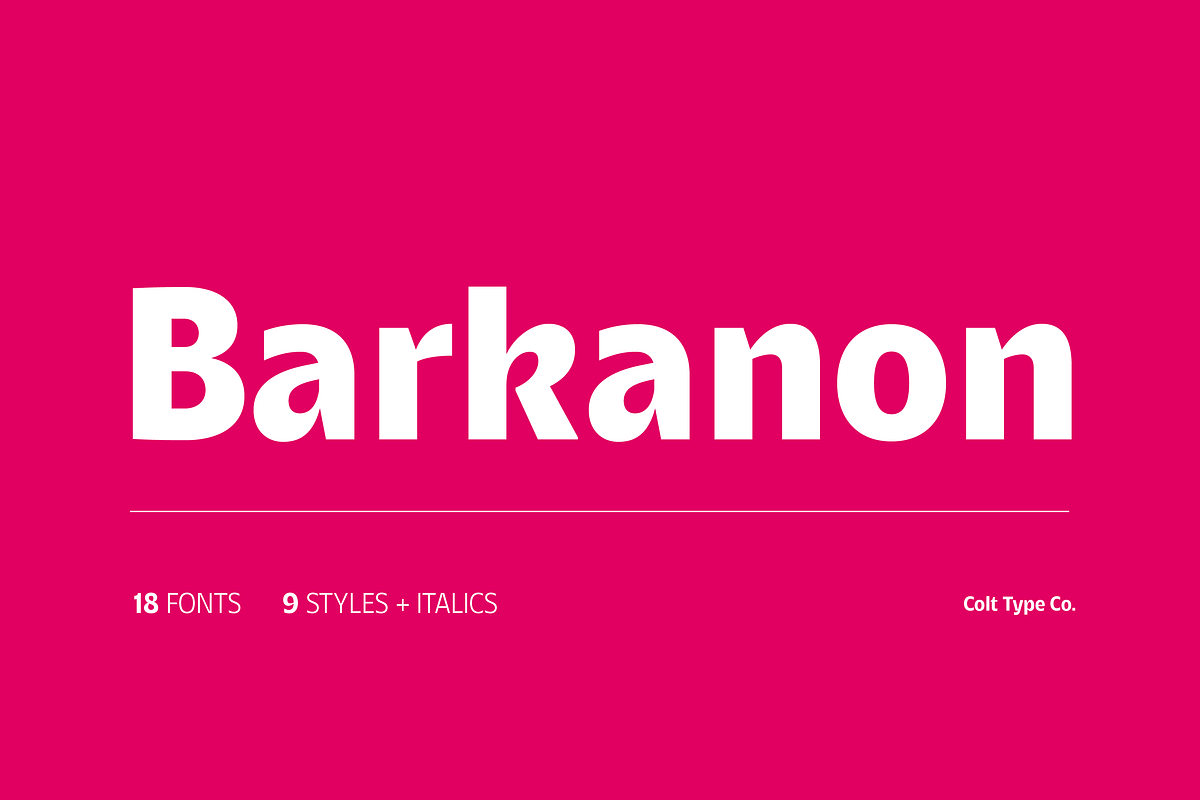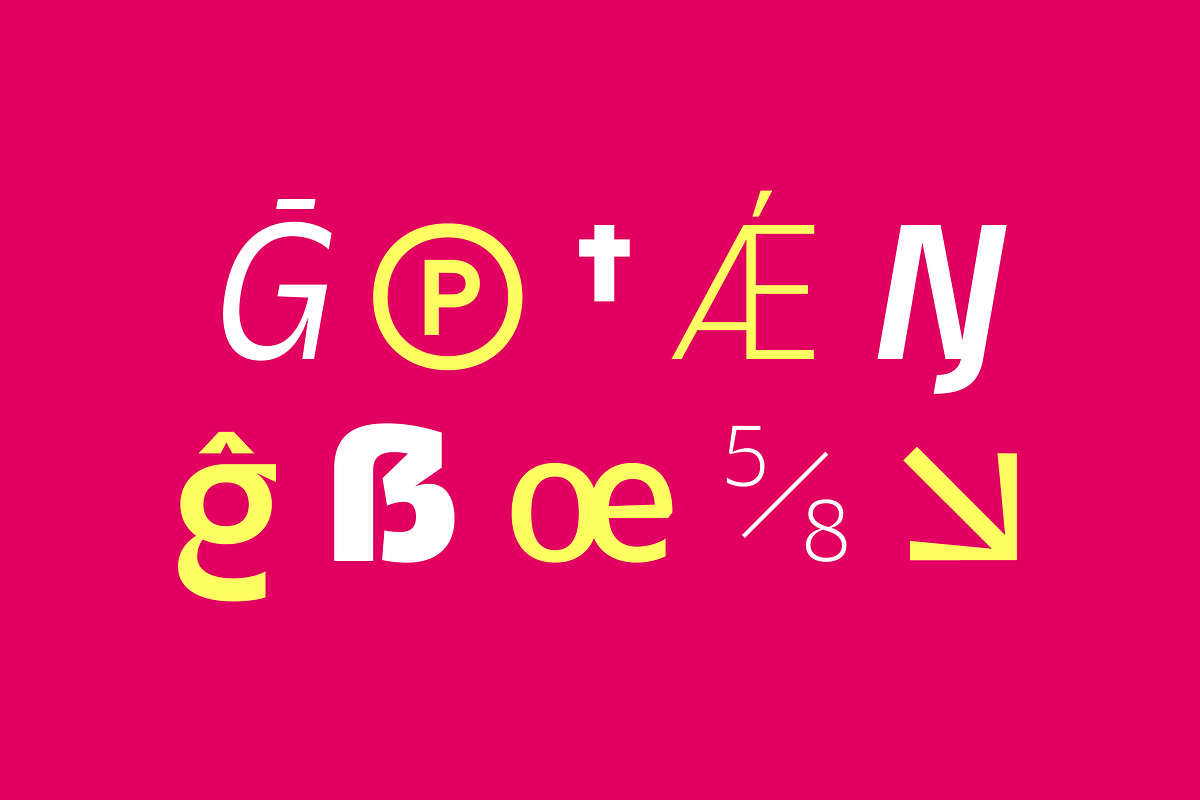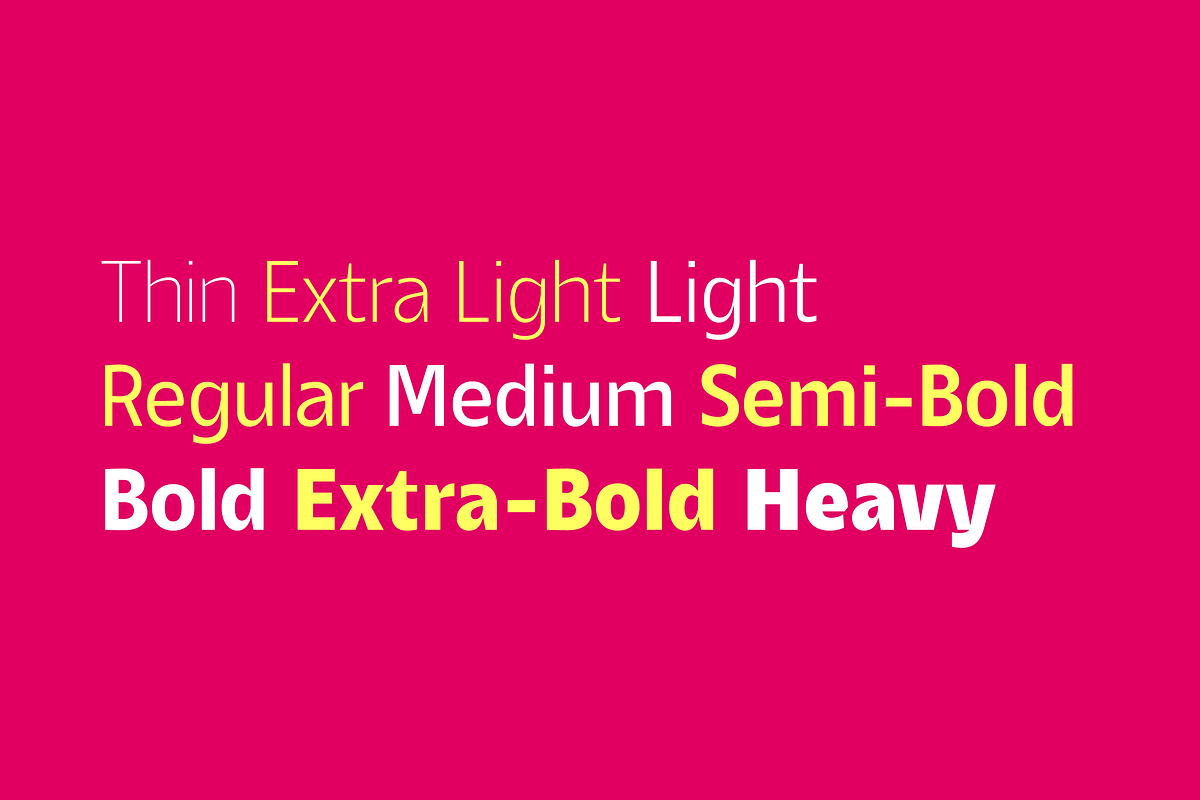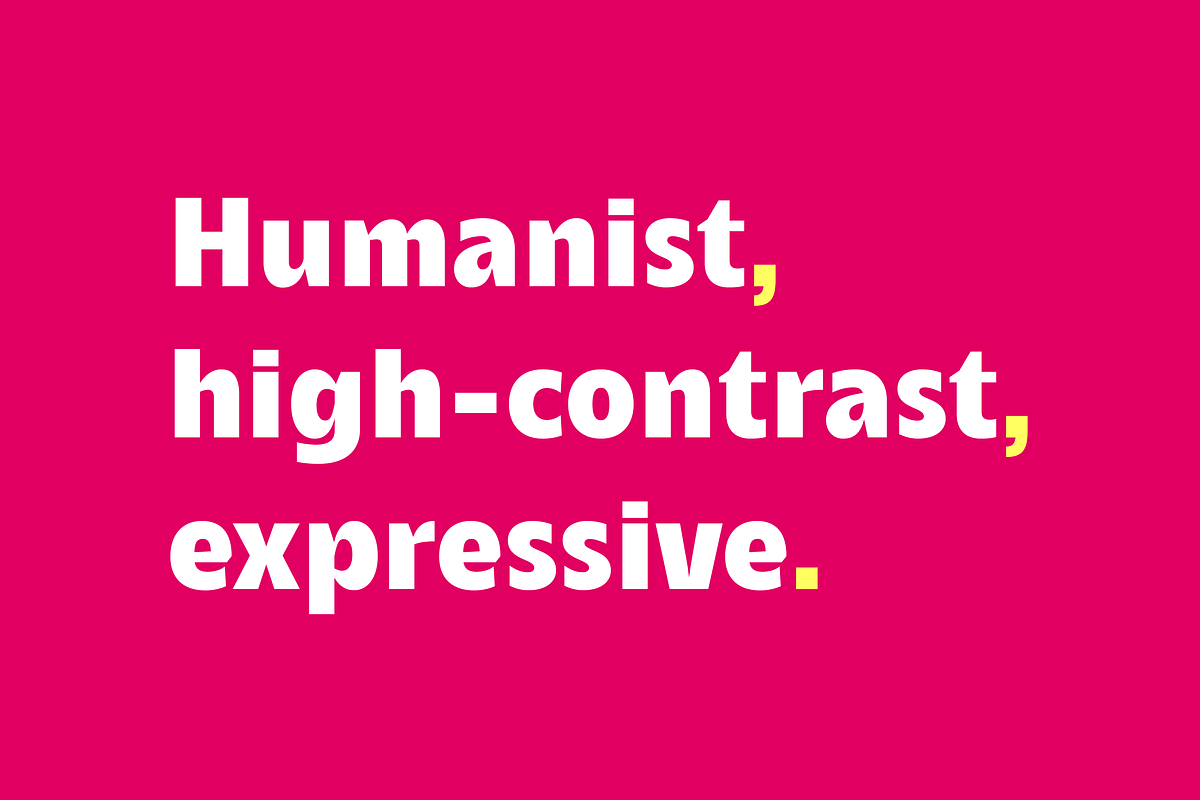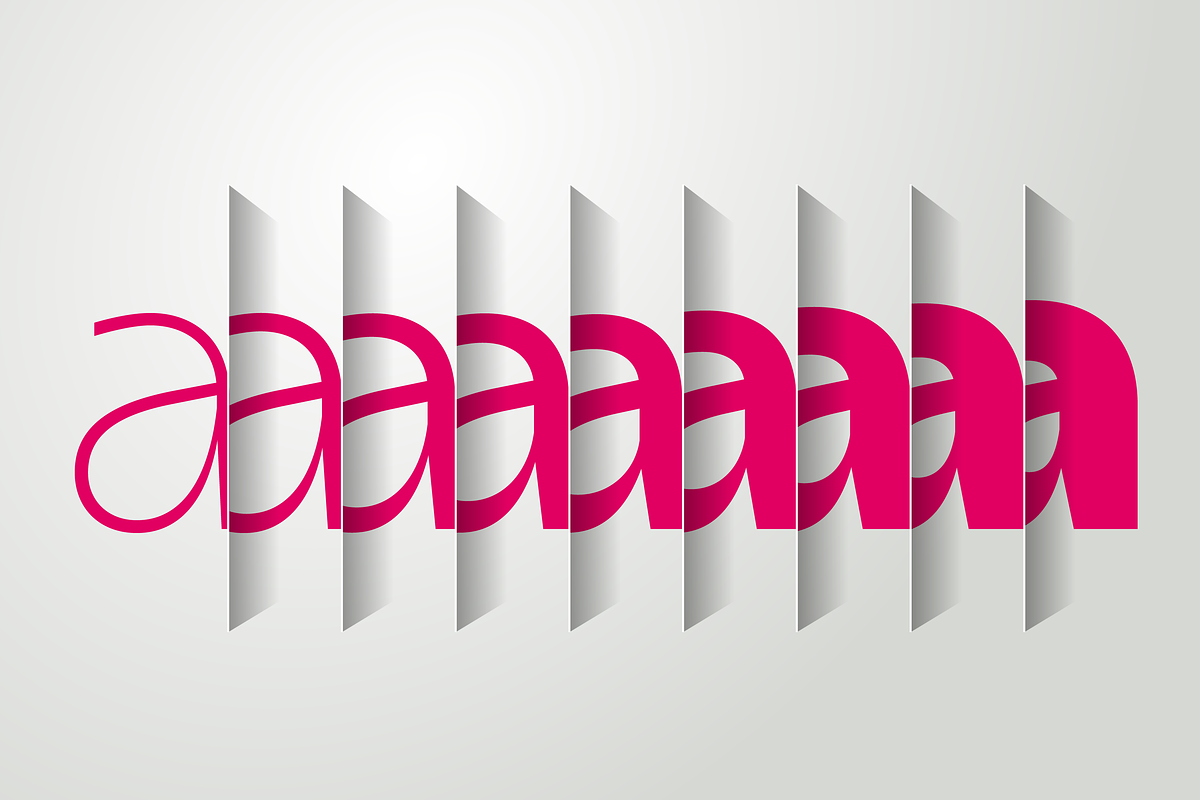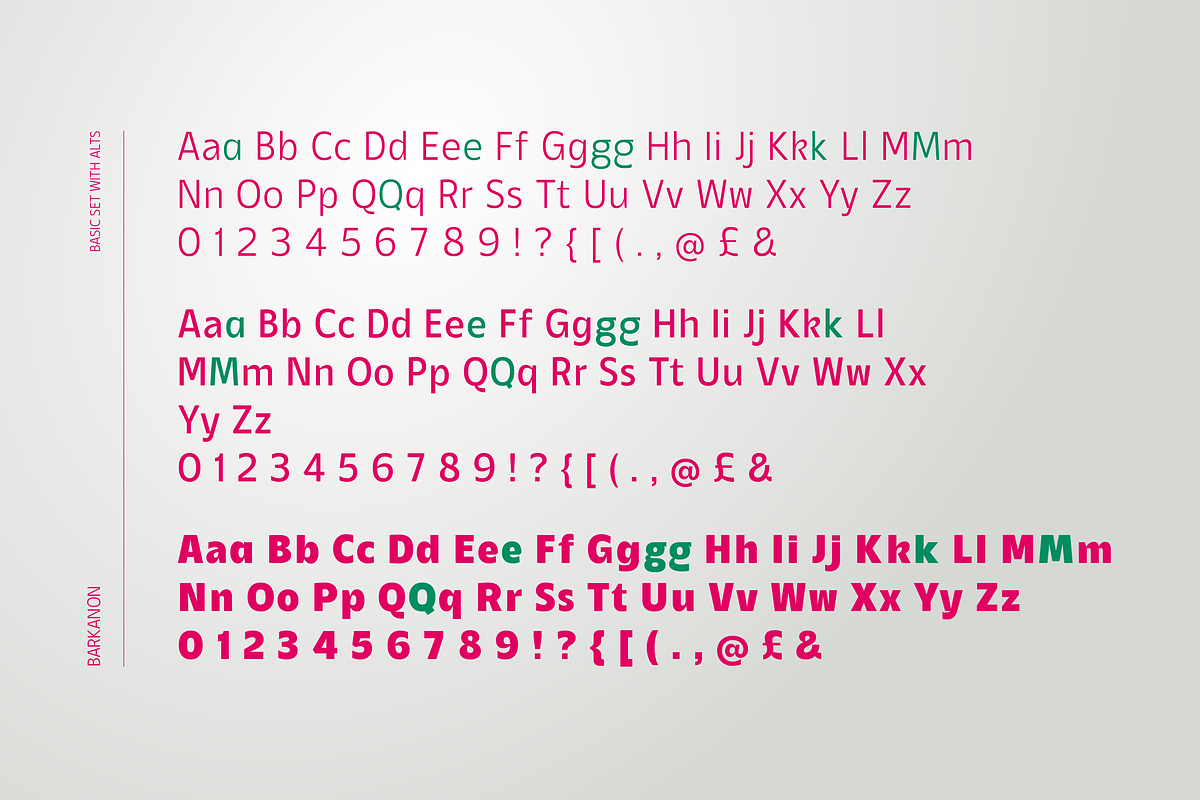
Barkanon Humanist Font
Barkanon is not your ordinary humanist sans serif typeface. Blending modern styling with classic humanist flow creates a bold and captivating look.
Designed to be expressive in the right places and legible where needed. Barkanon is great for headings, body copy, logos, etc.
Barkanon covers 96 languages, 9 styles plus italics, with stylistic alternates, ligatures, and other opentype features.